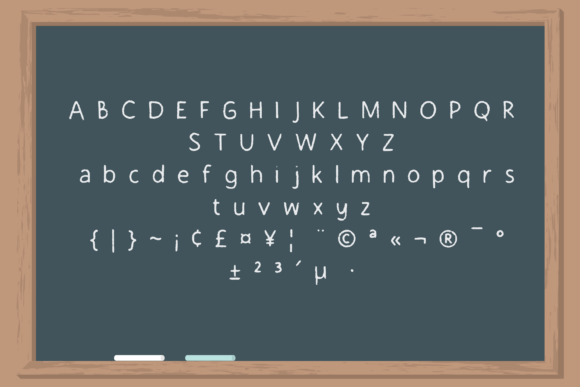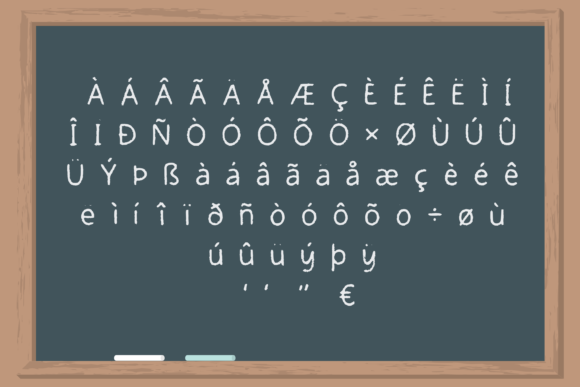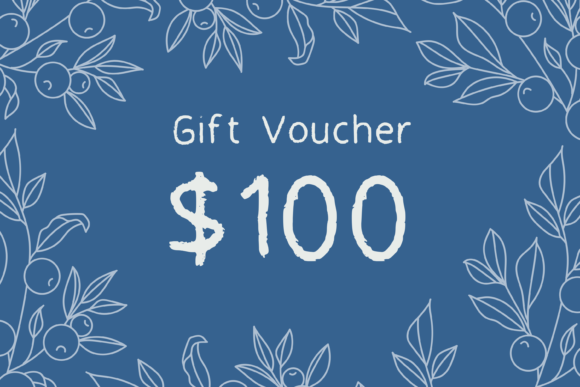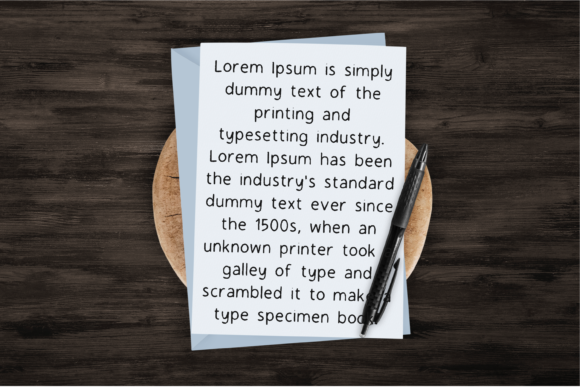
The Joy of Design: Introducing the Chalkiest Font
Have you ever found yourself staring at a blank page, pencil in hand, trying to come up with the perfect phrase to capture a moment? That’s where I was when I first discovered the Chalkiest Font. Its friendly script style and curvy lines seemed to bring my designs to life, making me feel like I was creating something truly special.
So, what exactly is the Chalkiest Font? It’s a beautiful, down-to-earth script font designed to add a touch of warmth and personality to any design. Whether you’re working on a project for a client or creating something just for fun, this font is sure to make your designs look gorgeous. For designers, the Chalkiest Font is a valuable tool that can help bring a sense of approachability and friendliness to any project.
Key Features of Chalkiest Font
• Unique Characteristics: Chalkiest Font is known for its unique, hand-drawn aesthetic, with subtle texture and imperfections that give it a charming, organic feel.
Chalkiest Font Review
Overall, I’m really impressed with the Chalkiest Font. It’s a great addition to any design project that needs a fun and playful touch.
Here are some things that I think really work well with this font:
• ✨ Unique aesthetic: The chalk-inspired design is unlike any other font I’ve seen, and it’s perfect for adding a touch of whimsy to your design.
• ✨ Good legibility: Despite its unique design, the font is still easy to read, even at smaller sizes.
• ✨ Customizable: The font comes in a range of weights and styles, so you can customize it to fit your design needs.
• ⚠️ Not ideal for body text: While the font is great for headings and titles, it may not be the best choice for large blocks of body text.
• ⚠️ Limited language support: The font may not support all languages, so be sure to check compatibility before using it in a multilingual design.
Overall, I think the Chalkiest Font is a great addition to any designer’s toolkit. With its unique aesthetic and good legibility, it’s perfect for adding a touch of personality to your designs.
“Chalkiest Font” is perfect for:
• Creating a vintage or distressed look.
• Designing posters, flyers, or social media graphics.
• Adding a touch of whimsy to your designs.